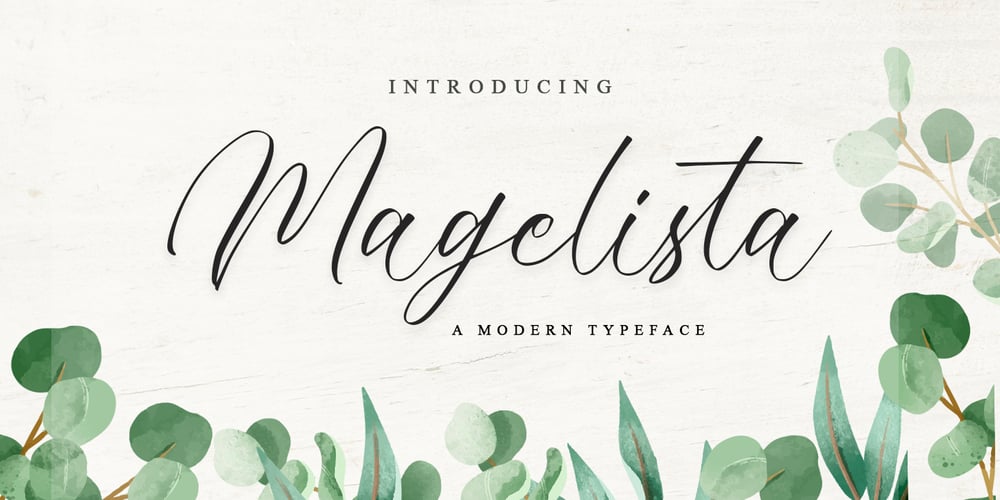
Magelista Font Family was designed by Novia Himatunnisa and published by Nissa Nana. Magelista contains 1 styles and family package options. Magelista is a stylish and incredibly elegant script font. It looks stunning on wedding invitations, thank you cards, quotes, greeting cards, logos, business cards and every other design which needs a customized touch.